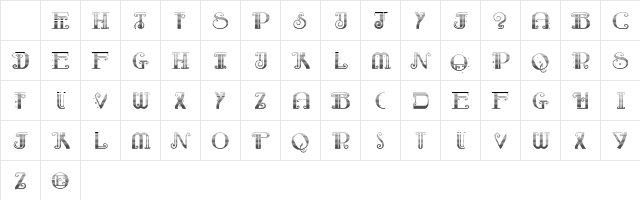
Complete Rebimboca Gradient Regular glyph index. Displaying only characters natively supported by Rebimboca Gradient Regular font.
Rebimboca Gradient is a composed and adaptable typeface that performs quietly and consistently across a wide range of design contexts.
Who designed the Rebimboca Gradient Regular font?